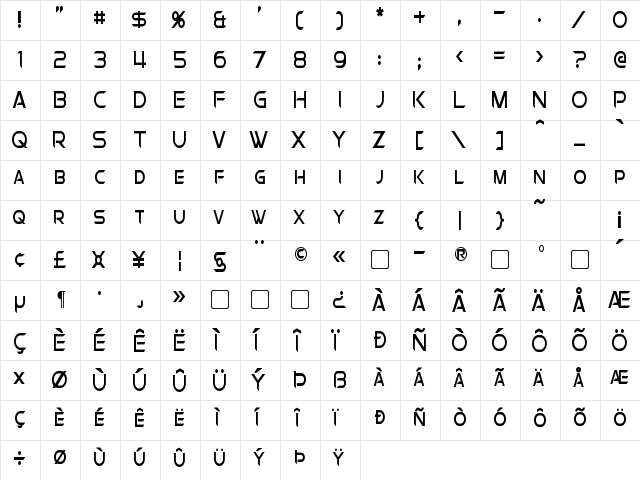
Chromia Supercap Condensed Regular
| Foundry | Pixel Sagas |
| Designer | Neale Davidson |
Design Context for Chromia Supercap Condensed Typeface
Chromia Supercap Condensed takes a measured approach to typography — its balanced proportions and neutral character make it a reliable workhorse for both digital and print work. The condensed width makes it efficient for tight spaces without sacrificing legibility.